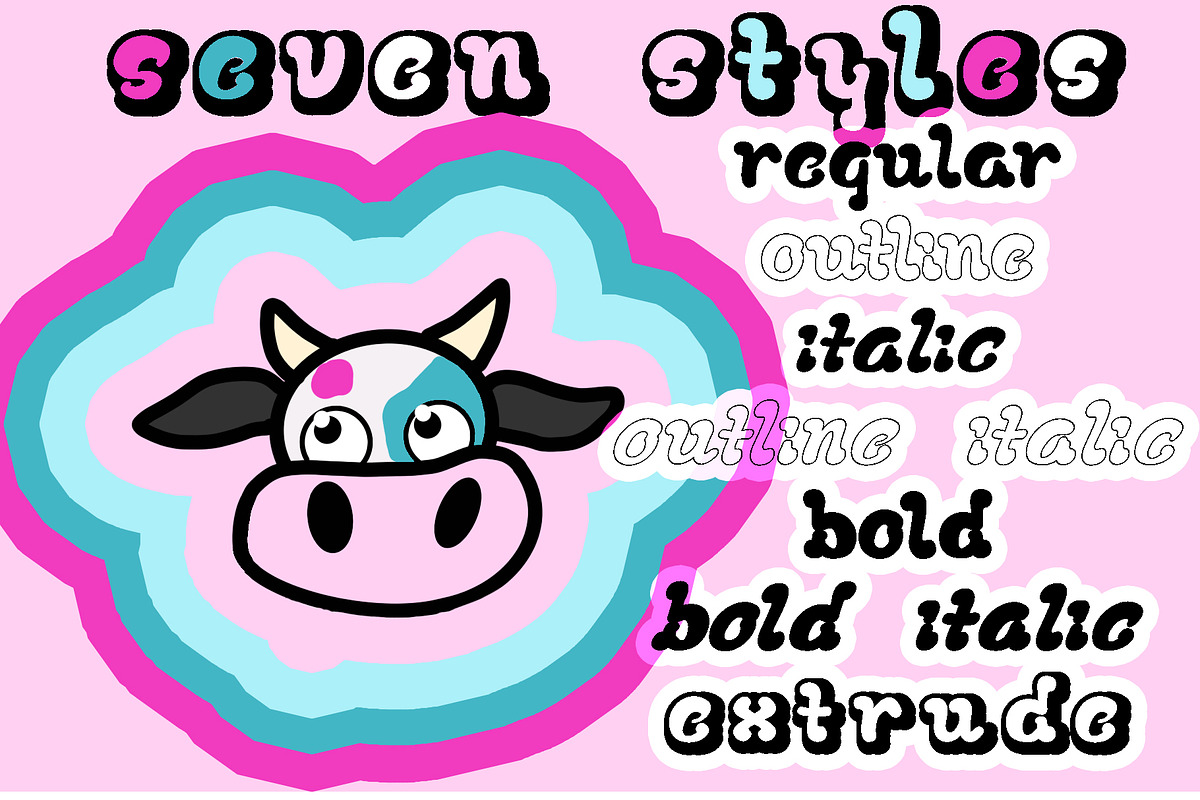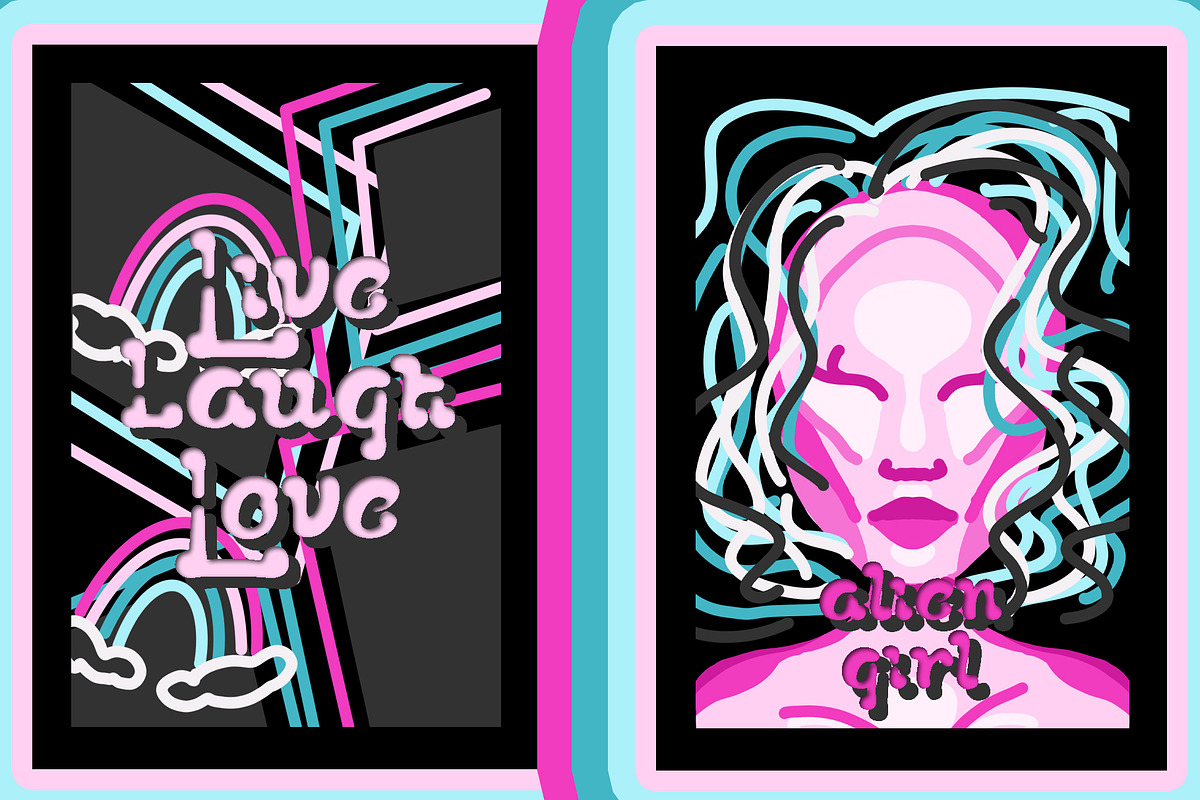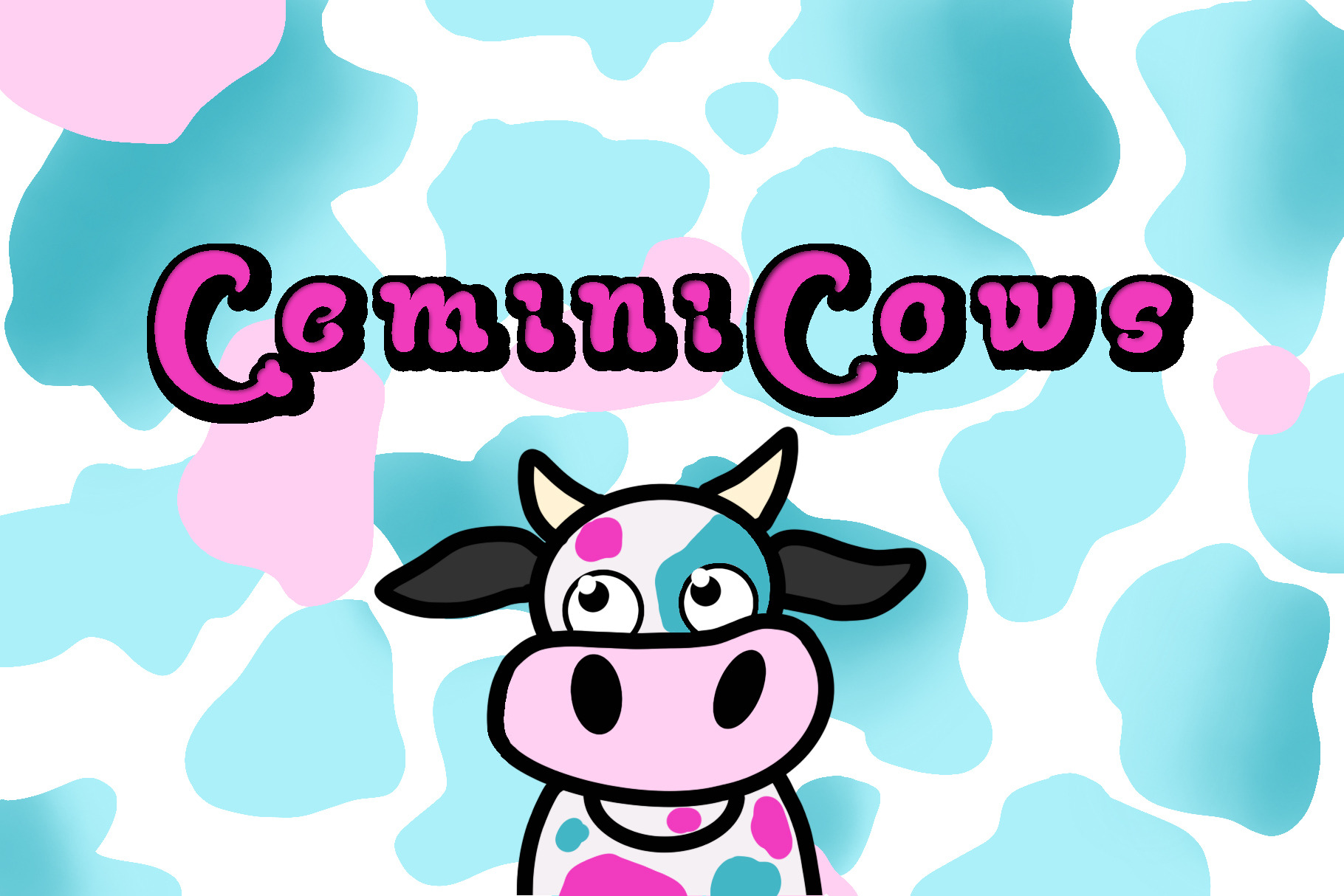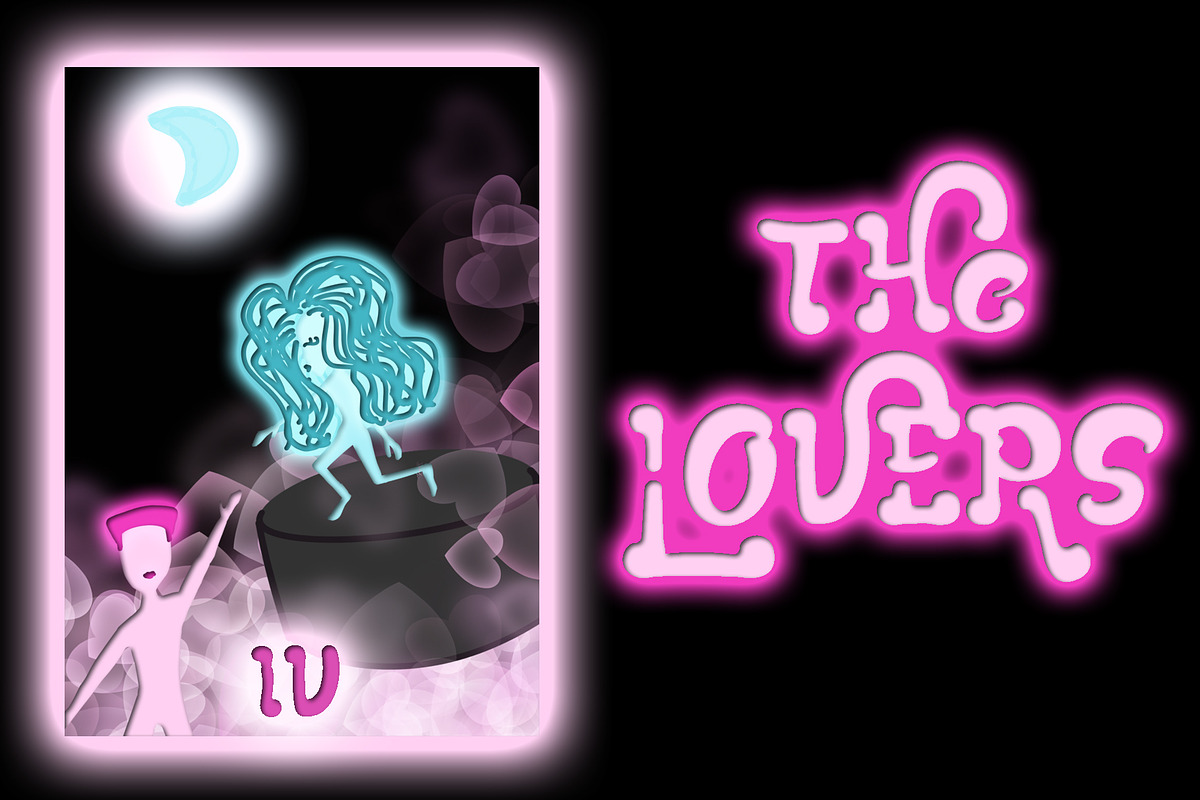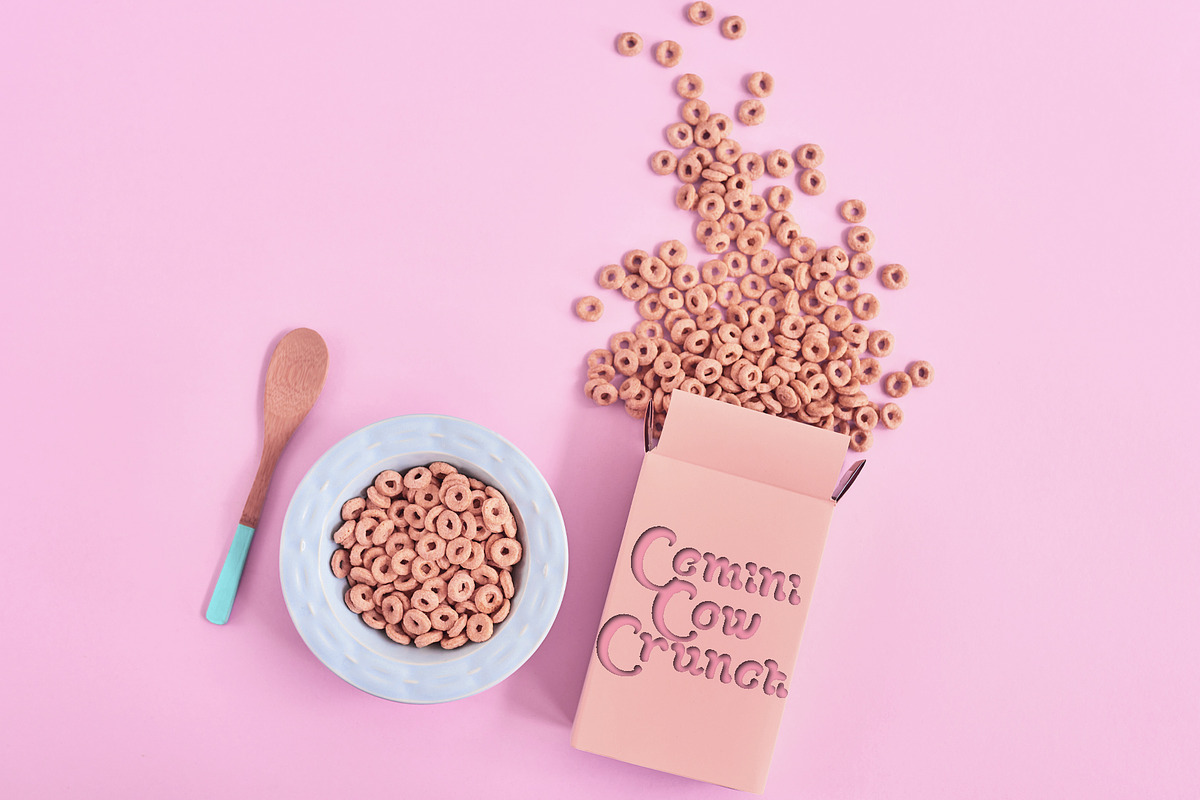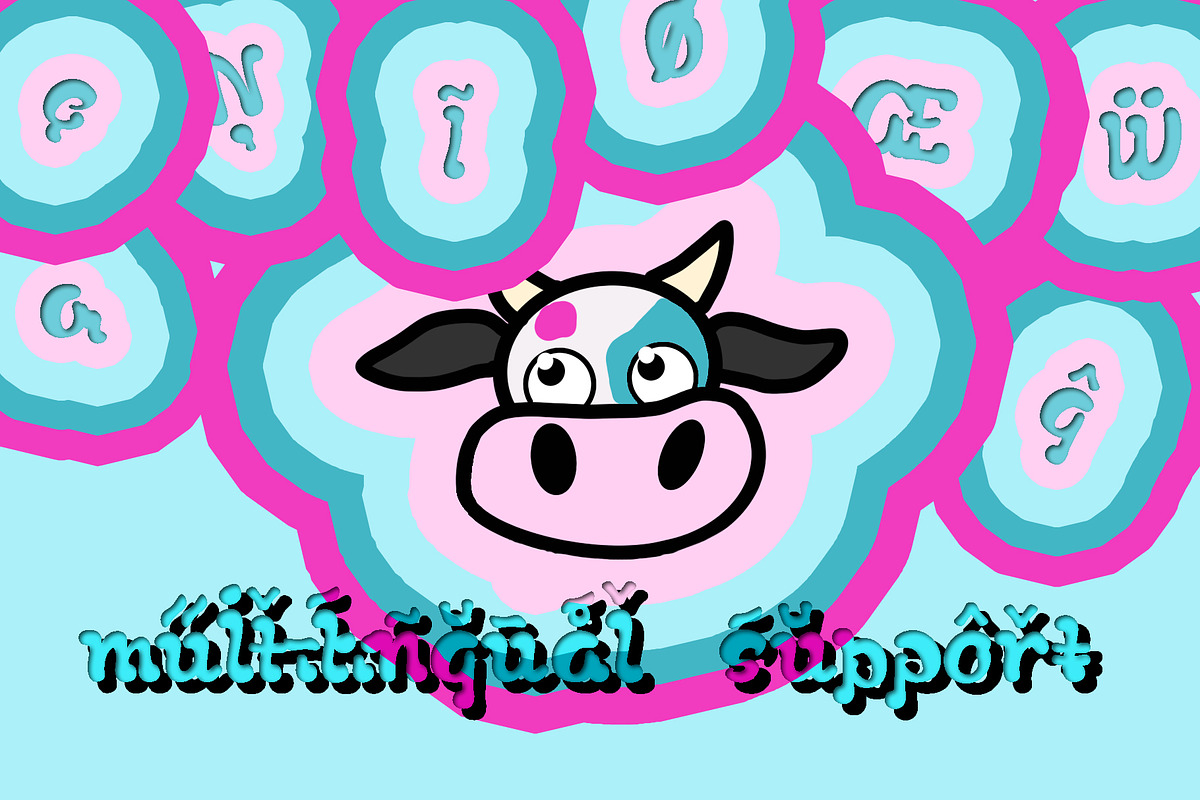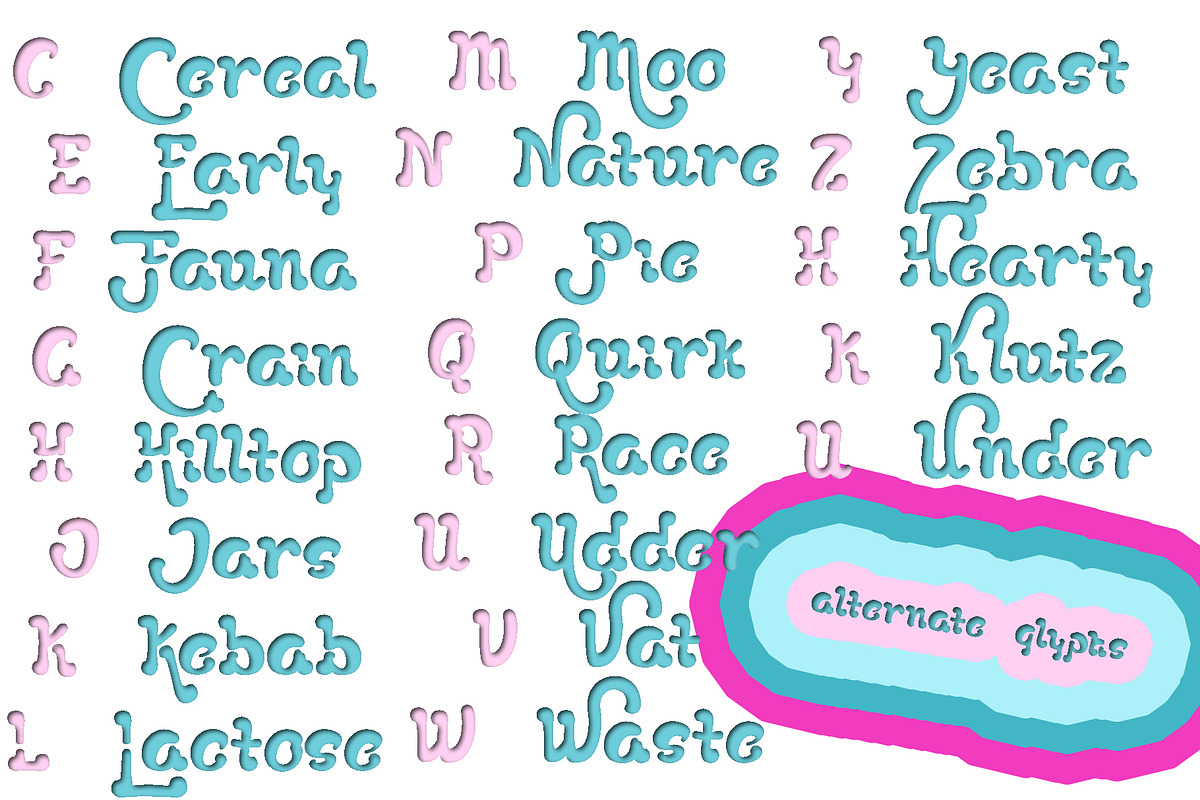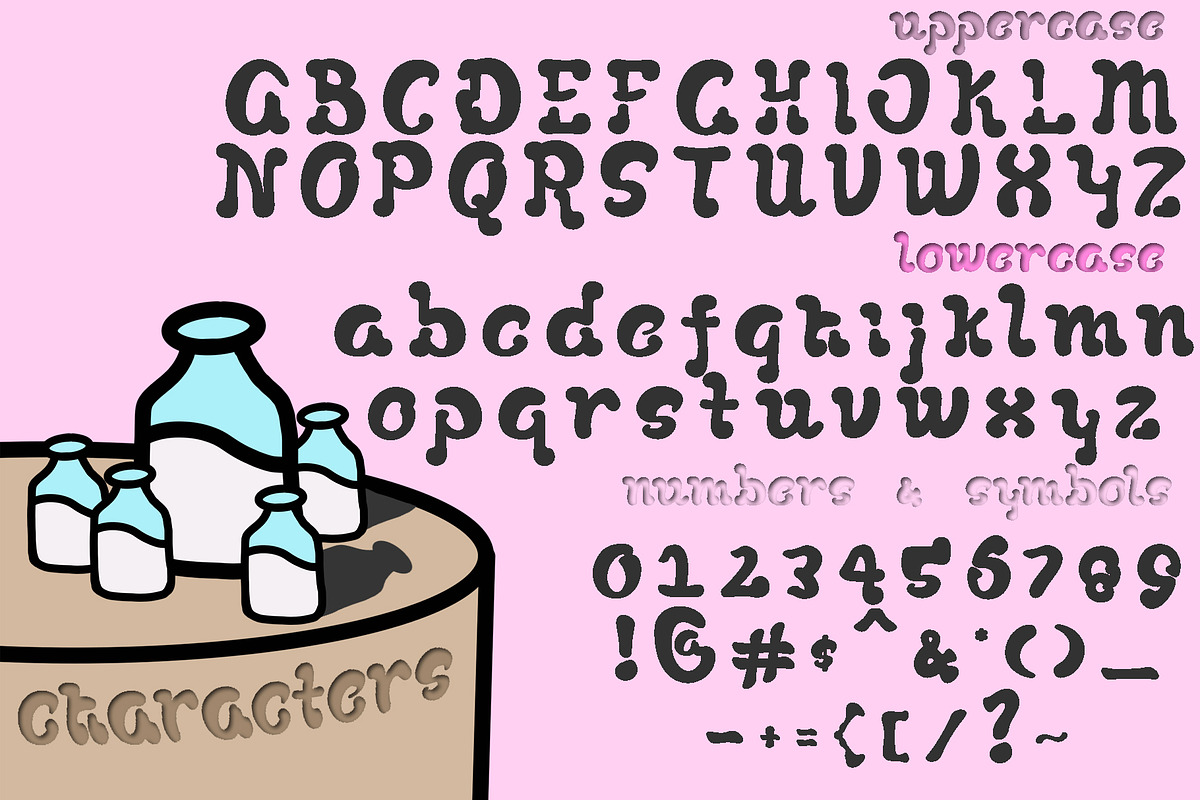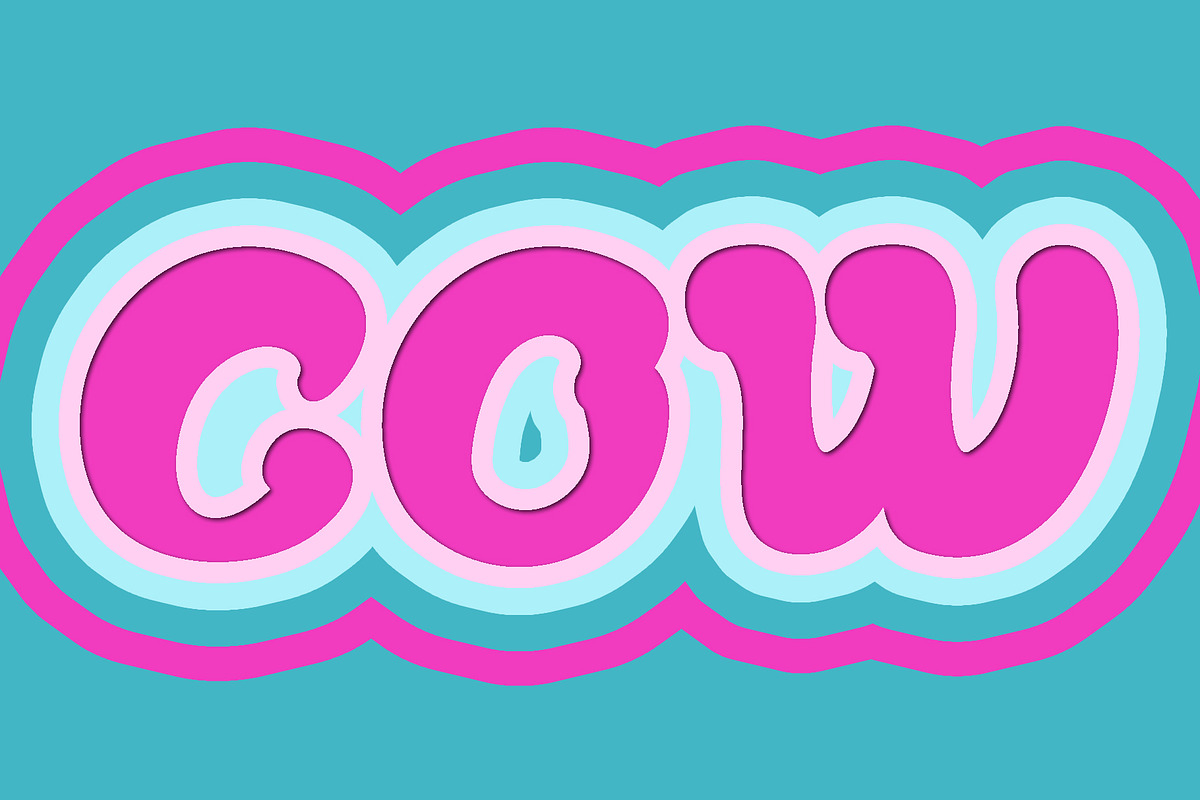
Gemini Cows Retro Typeface
Gemini Cows is the perfect funky, retro, bubbly font family! It includes every style you'll need to create a comprehensive website, clothing brand, poster, label, sticker, art cover, or any other graphic! This typeface is great for any project that needs both boldness and femininity. It comes with seven fonts, including
- Gemini Cows Regular
- Gemini Cows Outline
- Gemini Cows Outline Italic
- Gemini Cows Italic
- Gemini Cows Bold
- Gemini Cows Bold Italic
- Gemini Cows Extrude
Great for any projects needing a retro or throwback feel, restaurant menus, along with book, movie, and album covers. It has a feminine and juvenile feel simultaneously and can be layered for cool effects.
It also has swash alternates to give your words some flare :)
It has 460 glyphs, supporting a variety of languages!